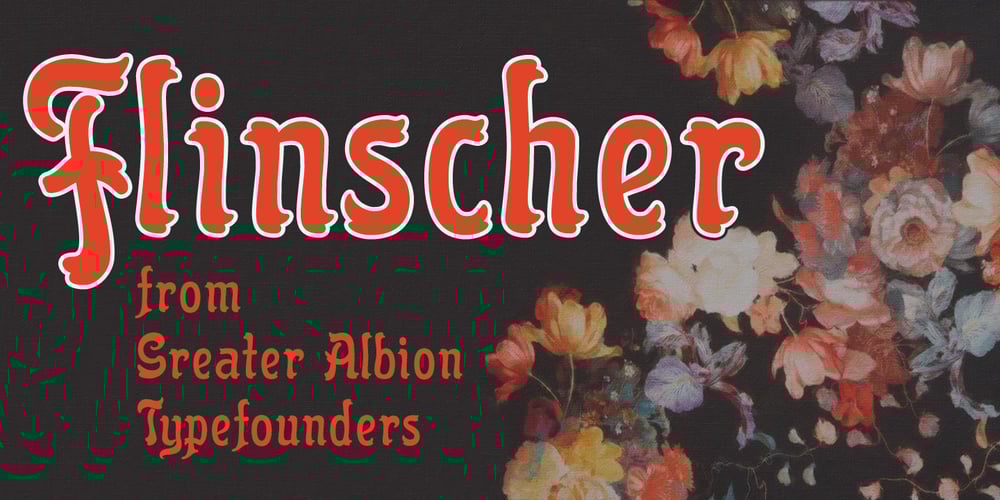
Flinscher Font Family was designed by Paul James Lloyd and published by Greater Albion Typefounders. Flinscher contains 20 styles and family package options. The Flinscher family contains twenty display typefaces, in weights that vary from light to black, and widths that extend from condensed to expanded. The family’s design inspiration traces its roots to the early portion of the twentieth century. In essence, it is a calligraphic script typeface family with blackletter influences. The letter forms are decorative and distinctive, yet clear and easy to read, and in use set up a regular rhythm that leads the eye from character to character. The Flinscher typefaces are well suited to design work that needs to combine formality with fun. Just the thing for a certificate or a book cover!